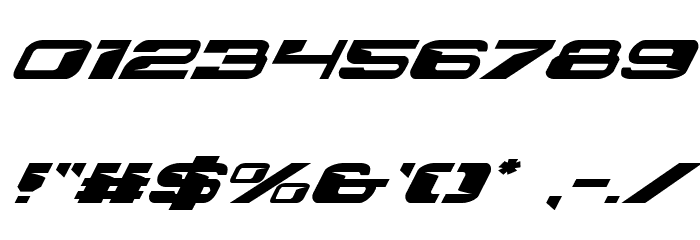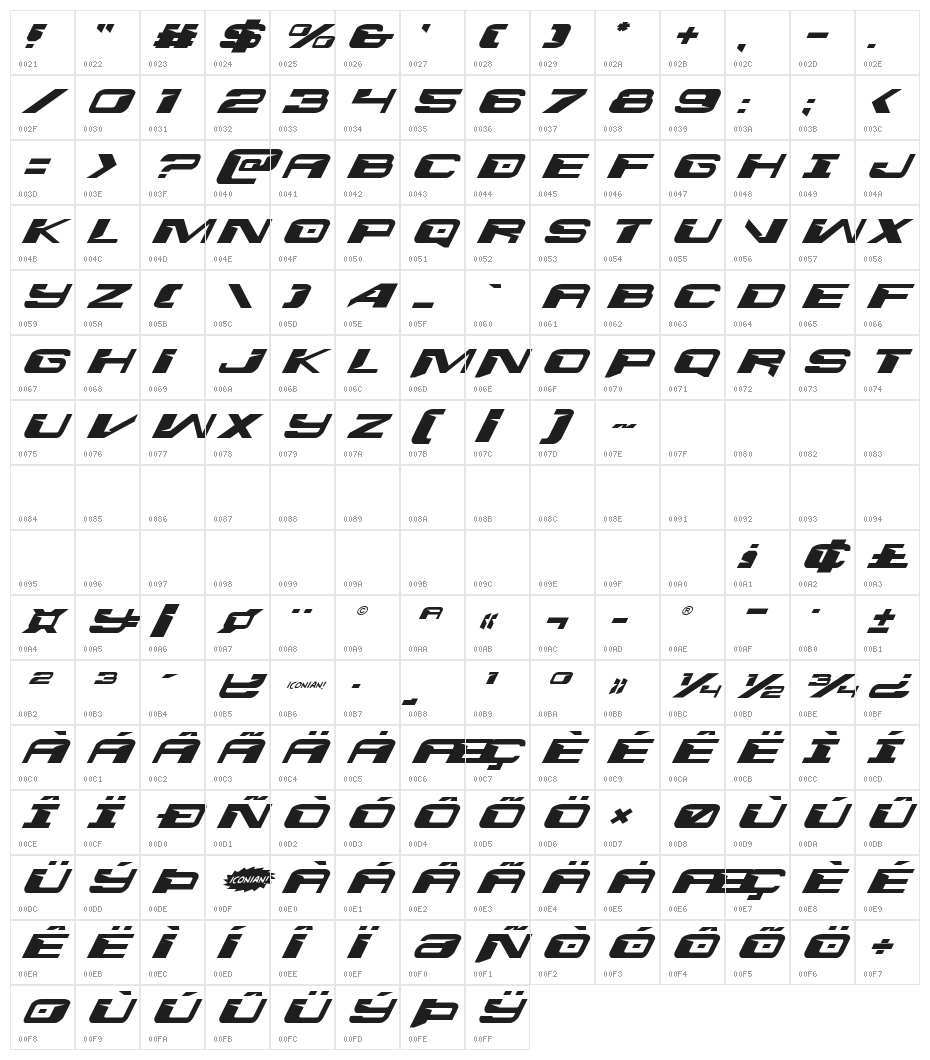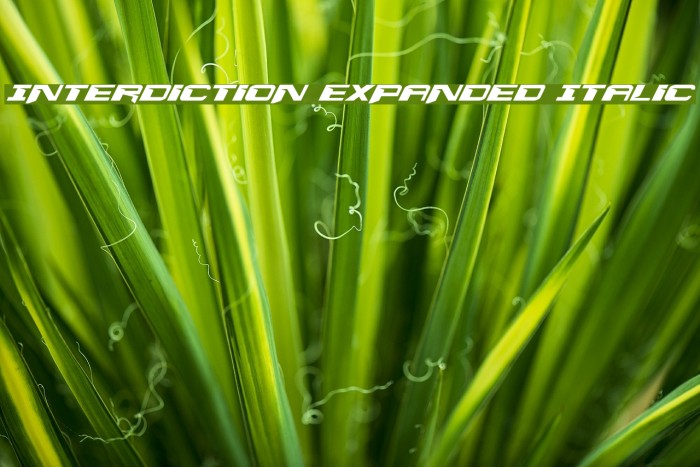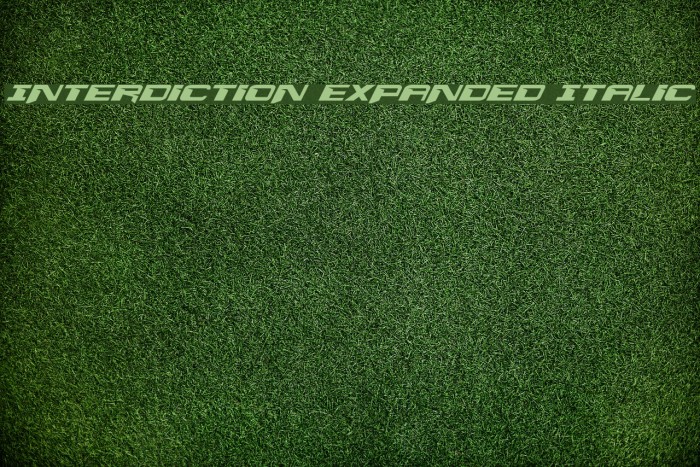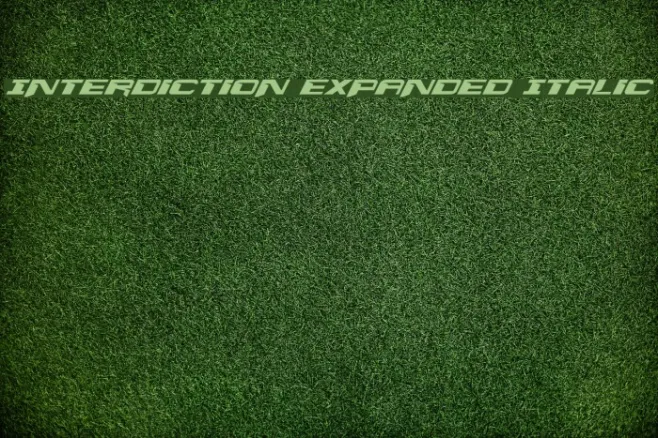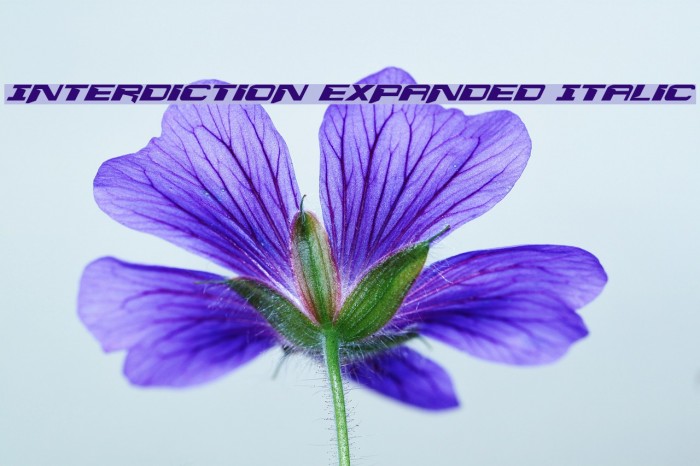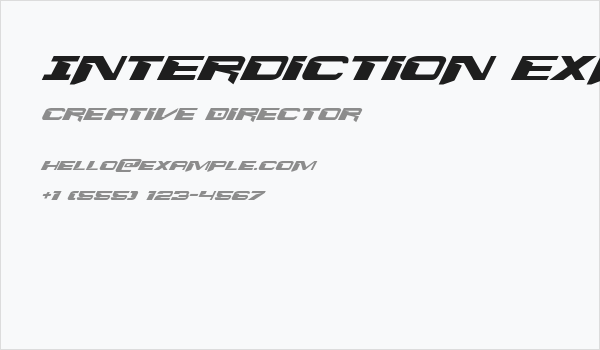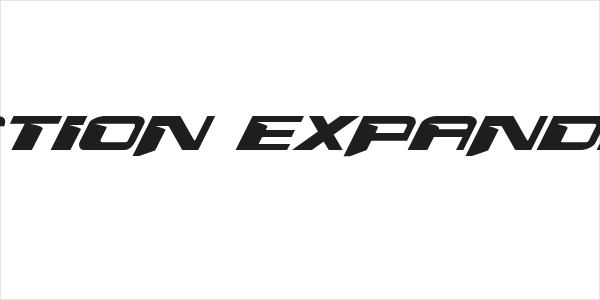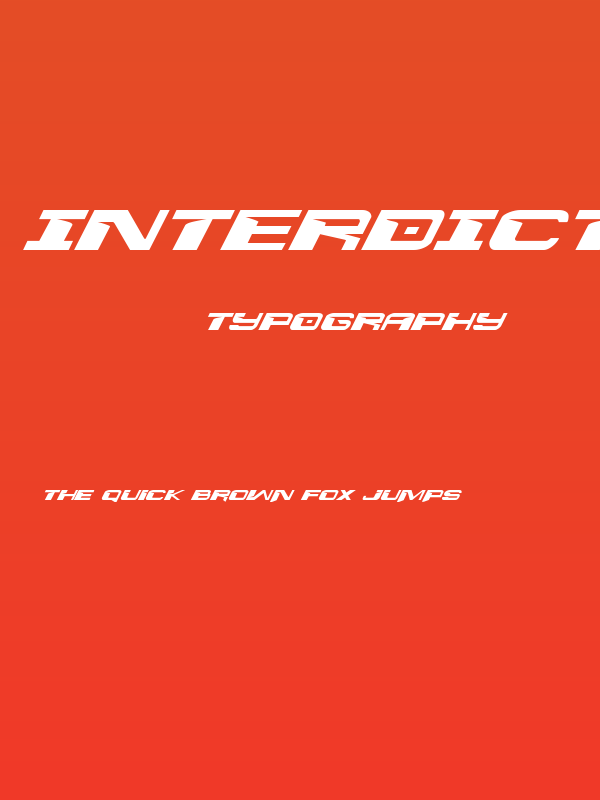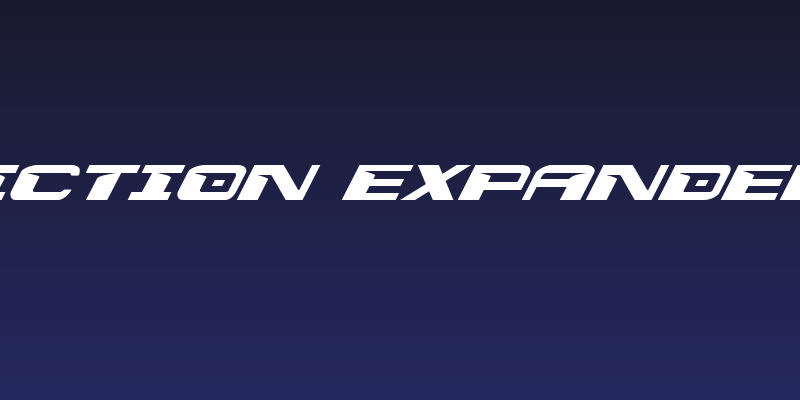
Interdiction Expanded Italic Font
Interdiction Expanded Italic Description
This font features a bold, italicized style with an expanded width, giving it a dynamic and futuristic appearance. The characters are sharply angled, with a distinct slant that enhances its modern aesthetic. The uppercase and lowercase letters maintain a consistent design, while the numerals and special characters are crafted to match the overall theme. The font's expanded nature provides a sense of space and movement, making it suitable for attention-grabbing designs.
| Proposed Projects | Ideal for sci-fi themed projects, technology branding, video game titles, and dynamic posters. |